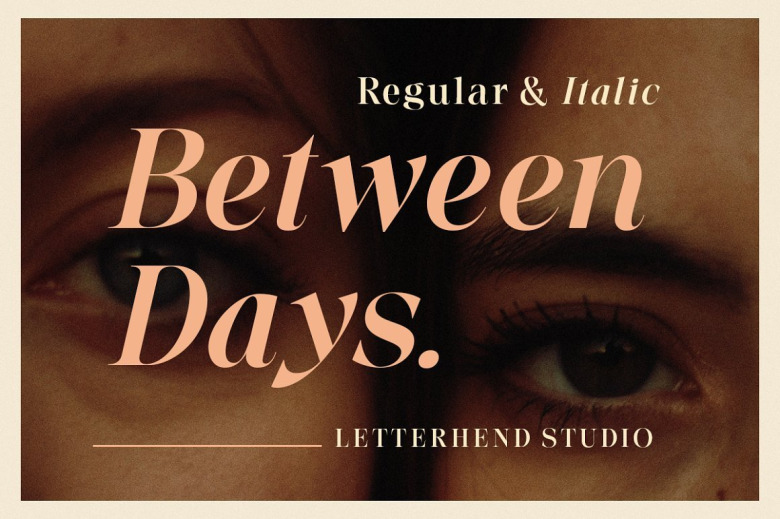
Between Days Font
Introducing, Between Days, A sophisticated serif with high contrast. This typeface has been made carefully to make sure its premium quality and luxury feel. Very suitable for logo, headline, tittle, and the other various formal forms such as invitations, labels, logos, magazines, books, greeting / wedding cards, packaging, fashion, make up, stationery, novels, labels or any type of advertising purpose.